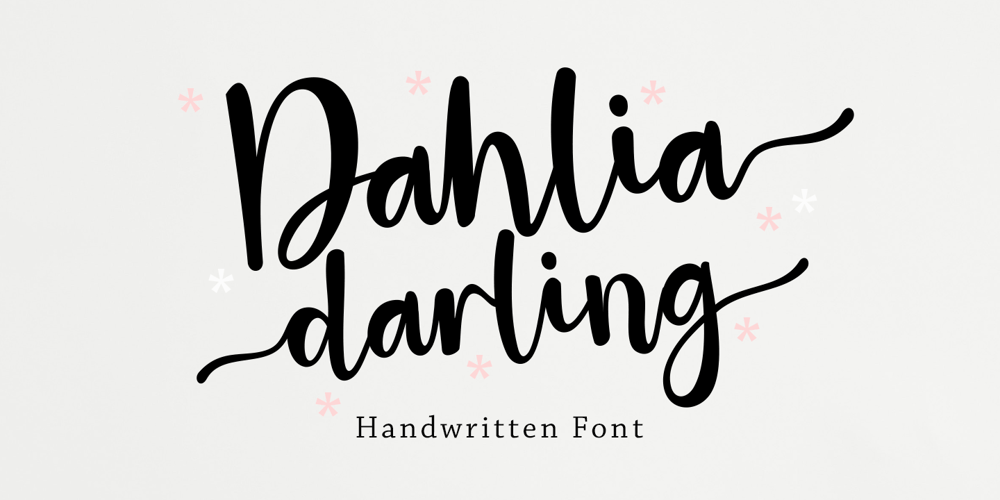
Dahlia Darling Font Family was designed by Nasrullah and published by Sulthan Studio. Dahlia Darling contains 1 styles and family package options. This beautiful handwritten font we made very attractive with a natural touch we worked back to clean smudges and into smooth lettering it’s easy when you cut as well as print stickers and other cool work you’re working on this font has 3 front swashes and 3 back swashes for lowercase and one alternative for uppercase, 98 ligatureFonts include uppercase and lowercase letters, punctuation numbers, and language support